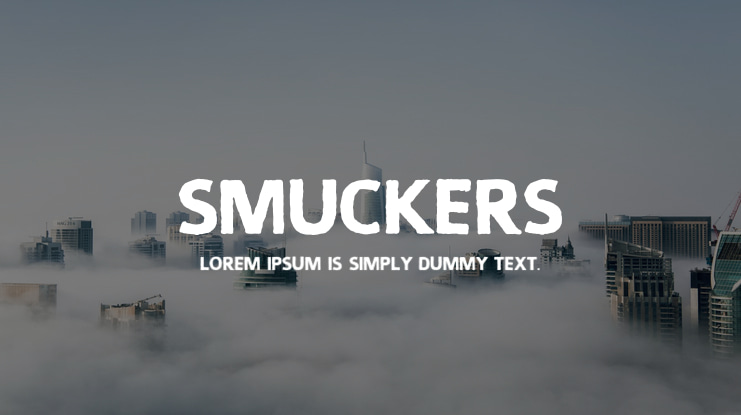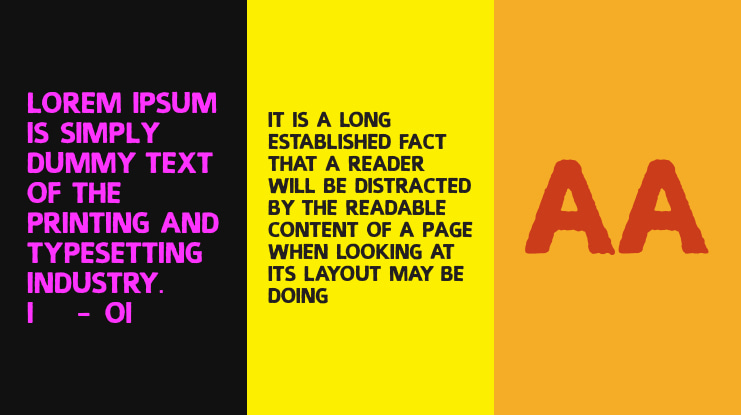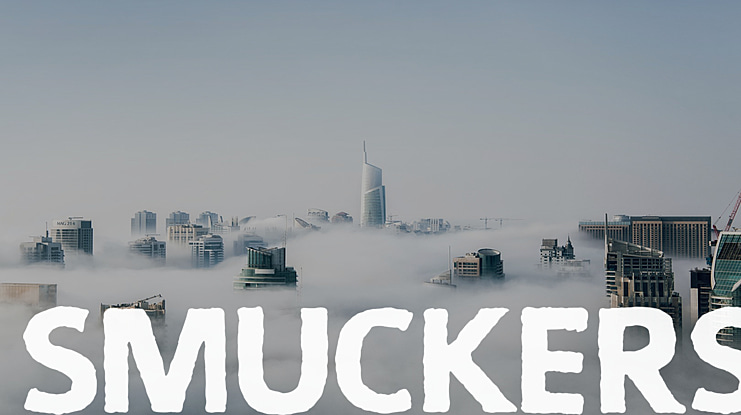
Smuckers Font
A messy Helvetica variant and my first attempt at font design. It was created in the following steps:
1. Modify Helvetica for variation 2. Print out results and place under plexiglass at a makeshift copy stand 3. Trace with Smuckers brand squeezable strawberry jelly & photograph each jelly letter. 4. Hand trace in Illustrator and finish in FontLab Studio.